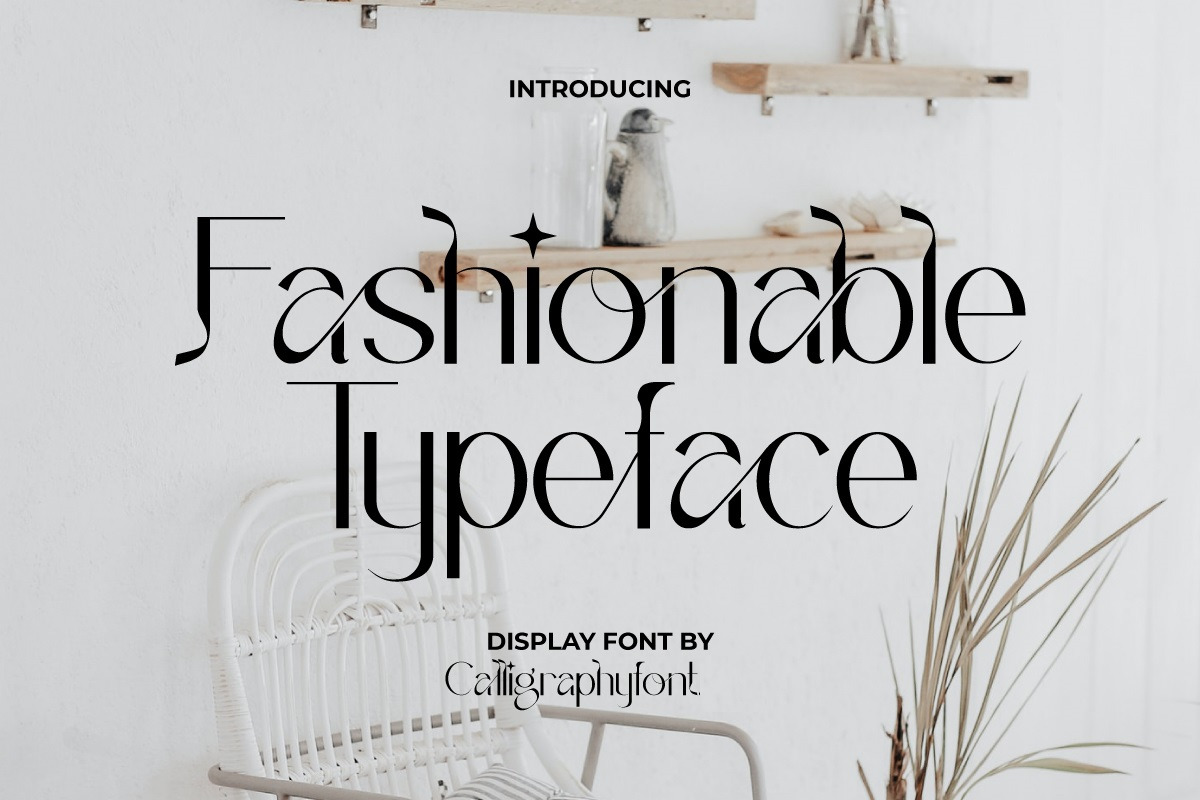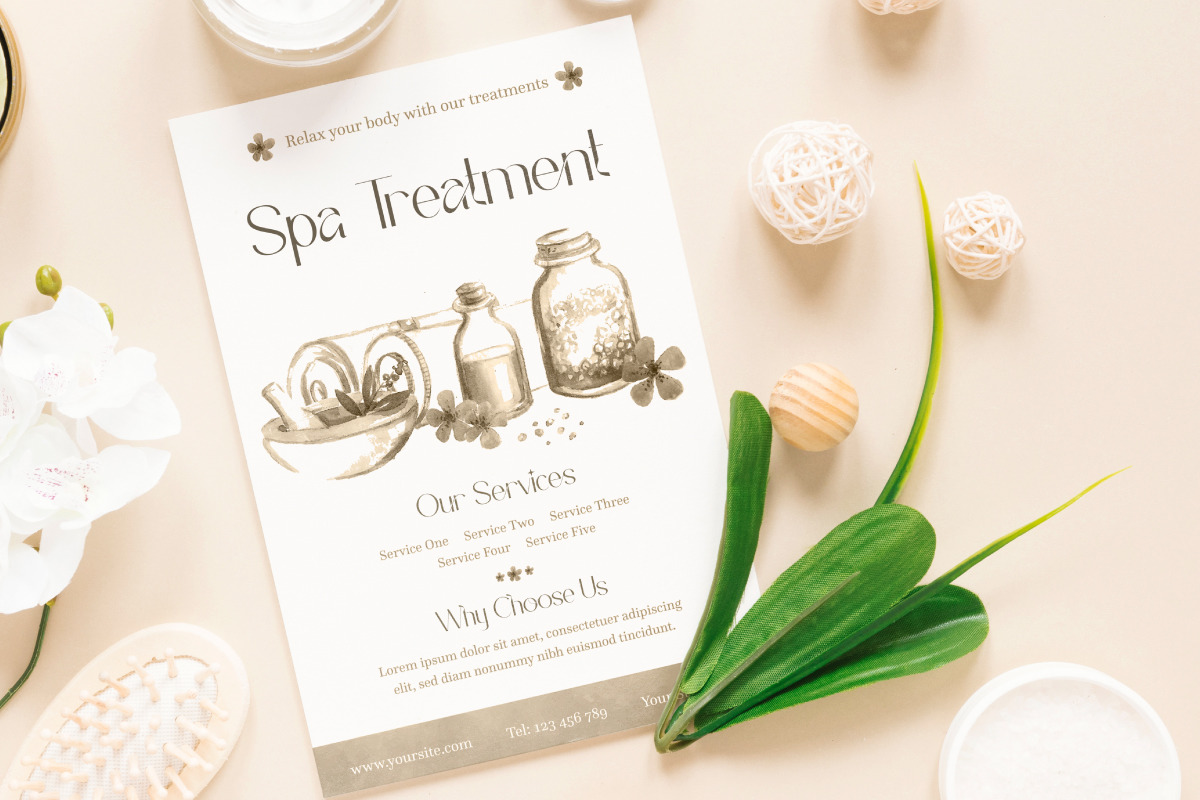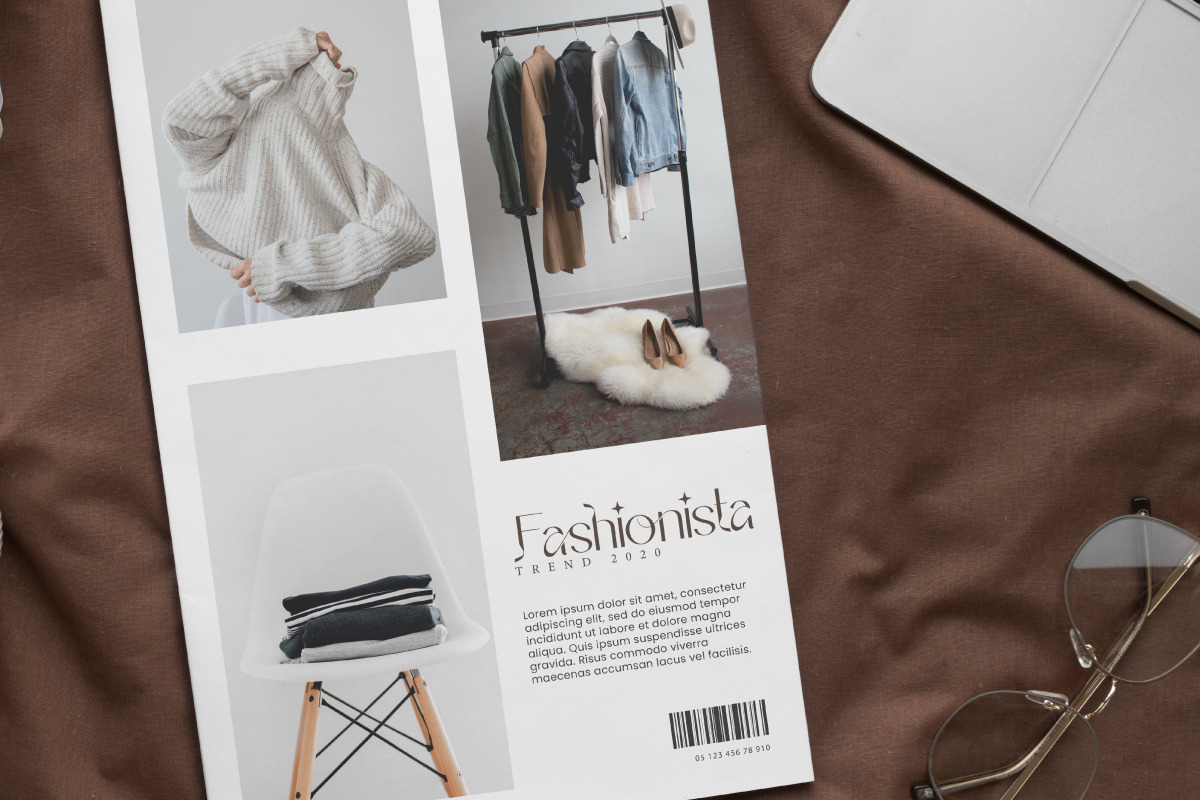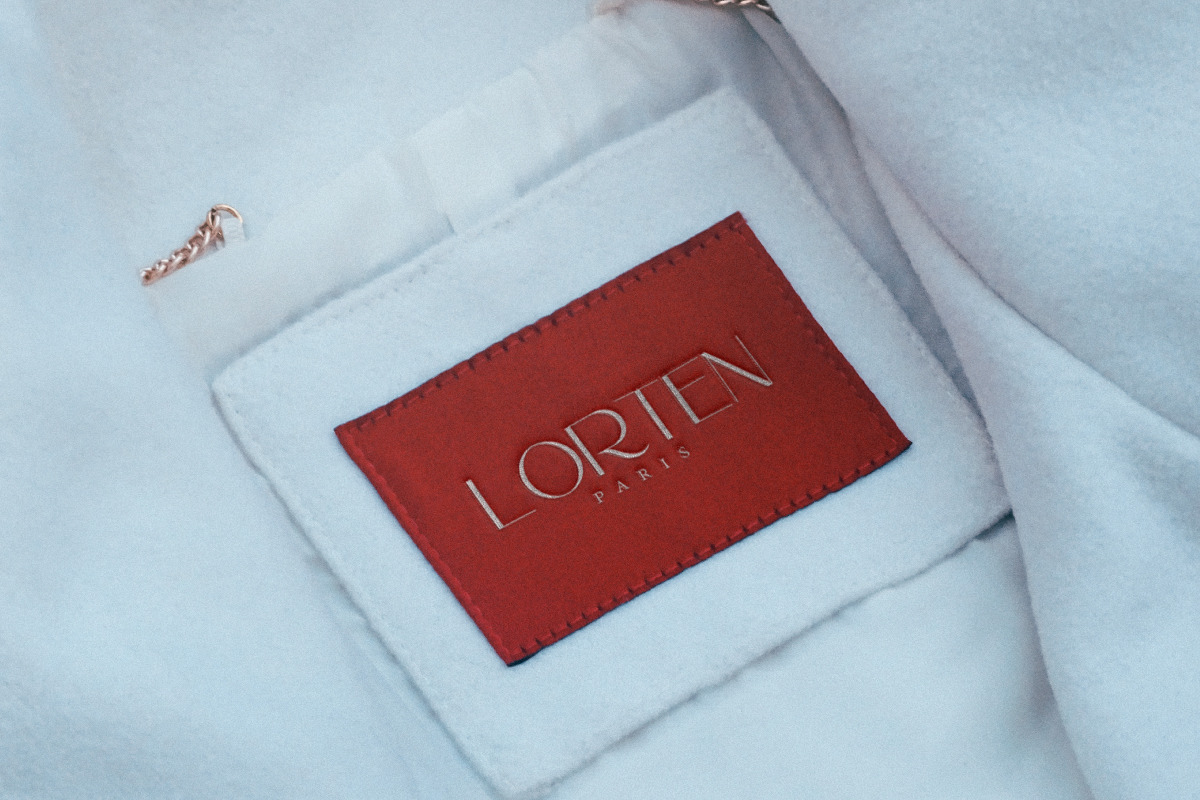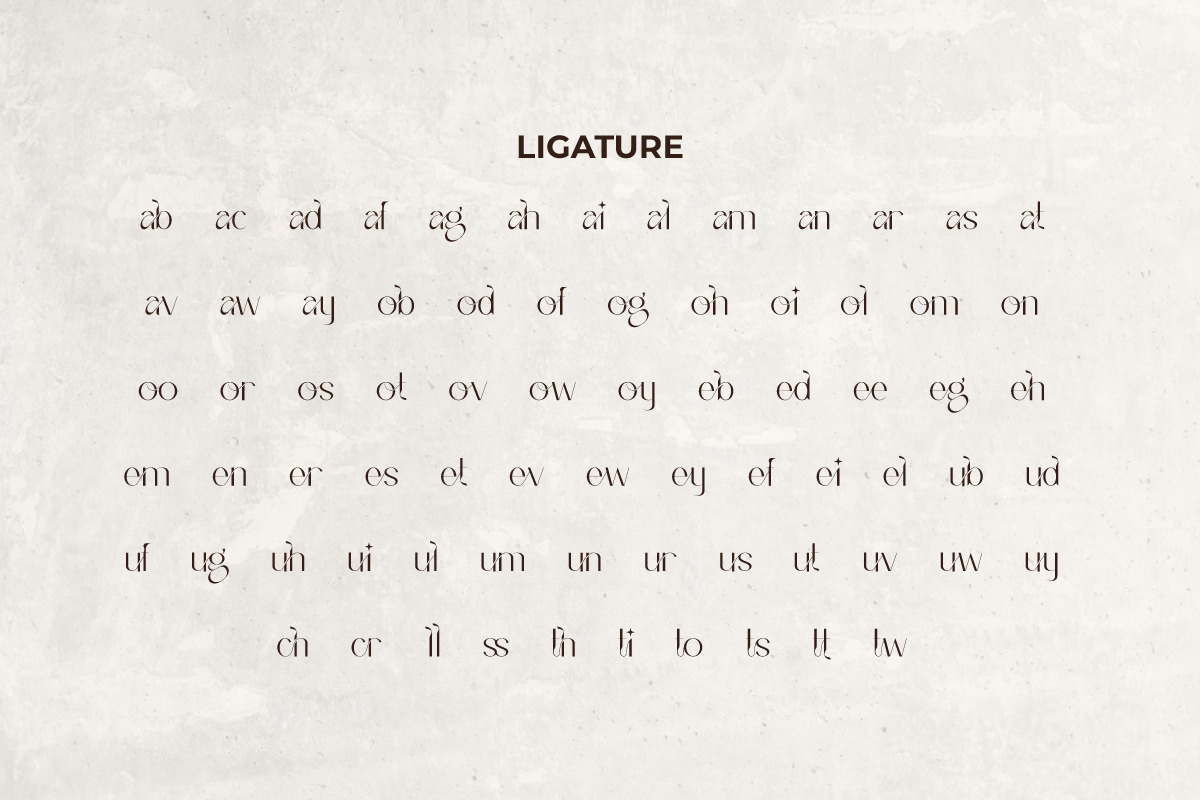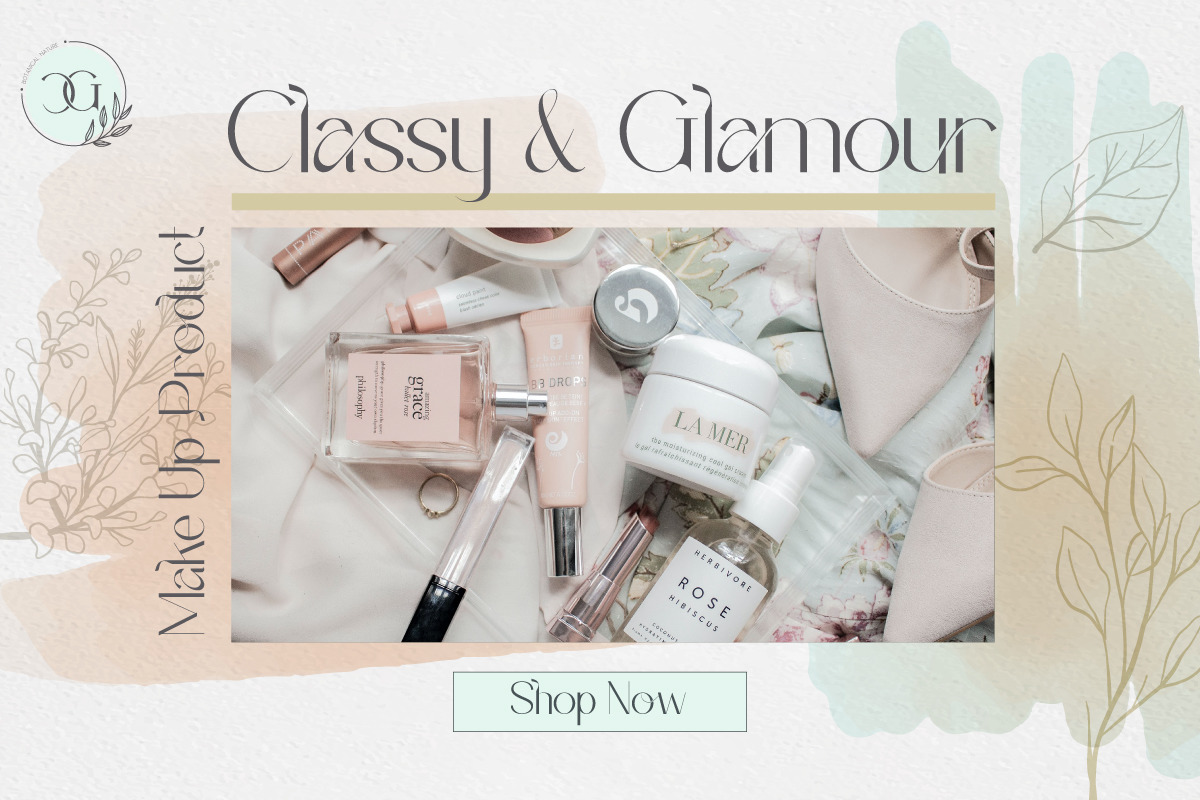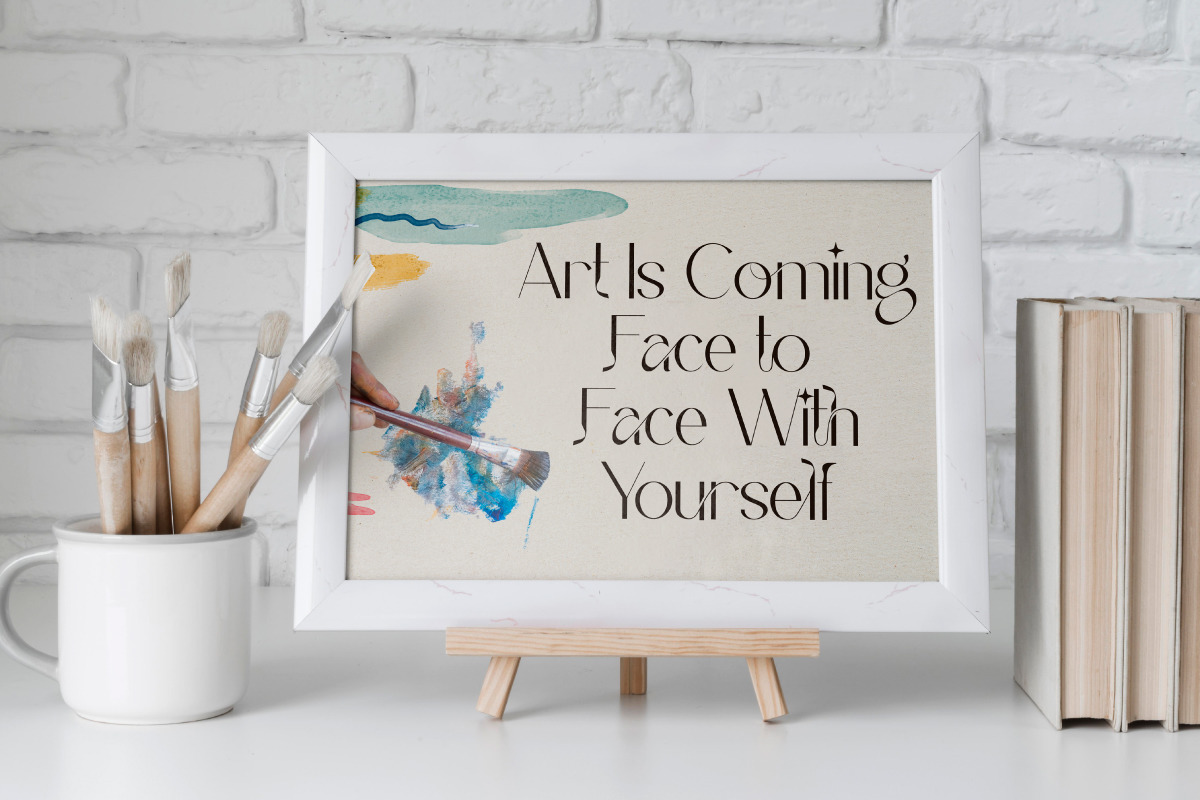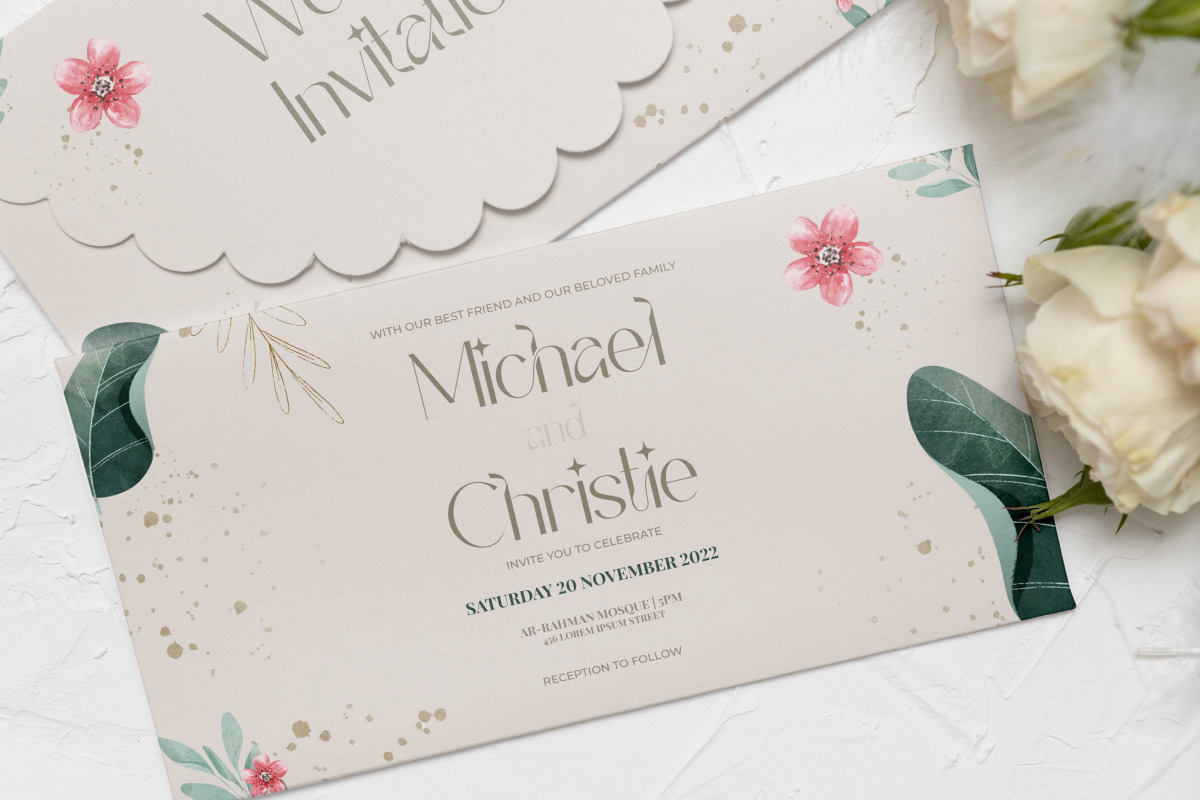
Fashionable Typeface
Fashionable Typeface Font is a stylish display font inspired by the modern world of fashion. This typeface has a unique shape with perfect legibility and it suitable for any creative project, such as: brand logo, brochure, invitation, label, magazine , catalog, price tag, quote, signage, stationery, web head page, etc.
Fashionable Typeface Font will be perfect for any industry, such as art gallery, boutique, cosmetic, event planner, fashion brand, florist, homeware, interior design, jewelry, movies, publishing, restaurant, salon, spa, writer, and anything that needs a charming look.